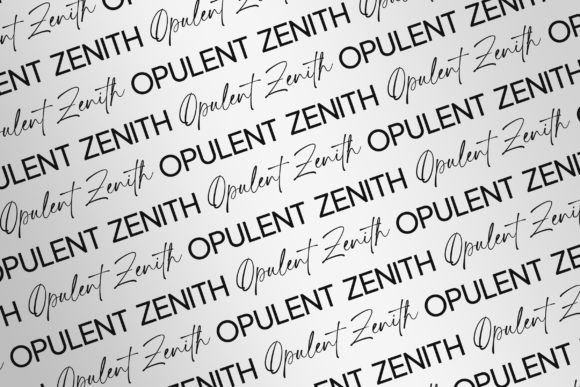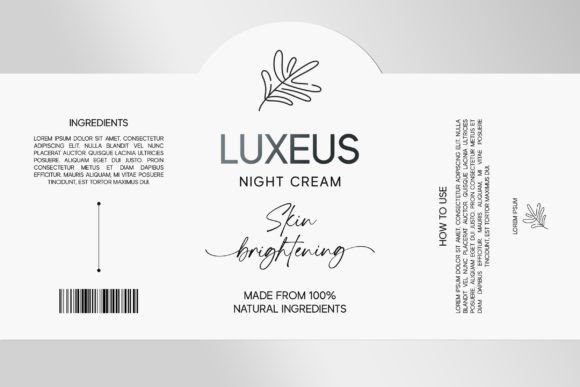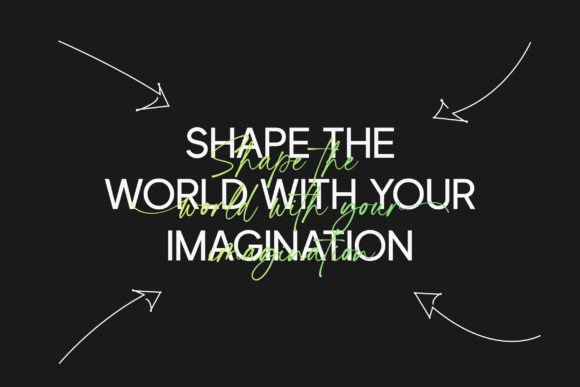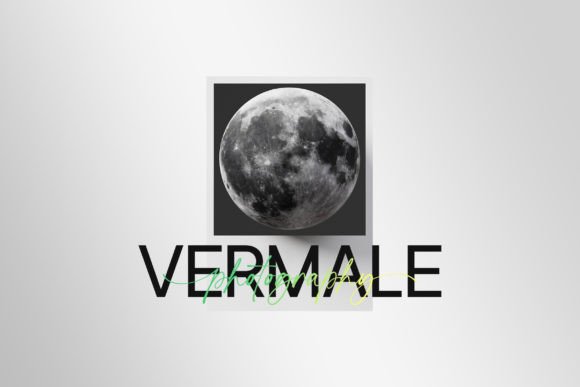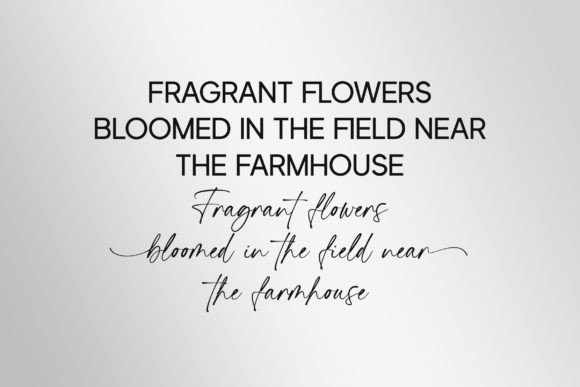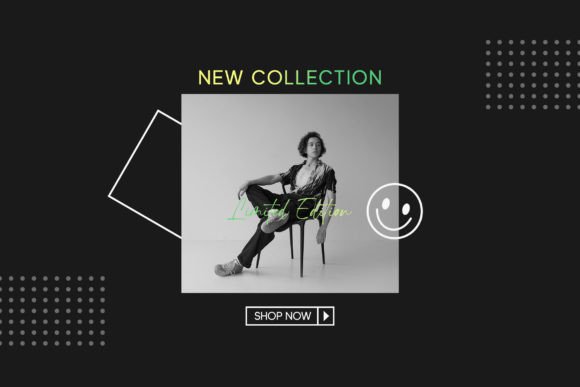
I still remember the frustration of working on a logo design project for a client who wanted a modern, elegant look. I had spent hours browsing through font libraries, but nothing seemed quite right. That was until I stumbled upon the Cromathic font duo. It was love at first sight! The combination of a sleek, modern sans-serif and an elegant script was exactly what I needed to bring my design to life.
What is Cromathic Font?
Cromathic is a font duo that pairs a modern all-caps sans-serif with an elegant script, providing a versatile design with a minimalist yet appealing impression. This combination makes it suitable for various design projects such as logos, branding, posters, labels, product packaging, and invitations.
- ✨ Versatility: Cromathic offers a range of design possibilities with its two font styles.
- ✅ Clean and Attractive Style: The font duo provides a balanced contrast that makes it easy to highlight messages in a clean and attractive way.
- 💡 Ease of Use: The fonts are easy to work with, even for those who are new to design.
⚠️ While Cromathic is a fantastic font duo, there are a few things to keep in mind. The script font can be a bit finicky when used in large blocks of text, and some users may find the sans-serif font a tad too geometric for certain design applications.
🤔 Additionally, Cromathic may not be the best choice for body text due to its elegant and modern design, which may be better suited for headings and titles.
Cromathic was designed with the goal of creating a versatile font duo that could be used for a wide range of design applications. The designer wanted to create a font that was both modern and elegant, with a clean and attractive style.
Q: What is Cromathic font?
A: Cromathic is a font duo that combines a modern all-caps sans-serif with an elegant script, providing a versatile design with a minimalist yet appealing impression.
Q: What design projects is Cromathic suitable for?
A: Cromathic is suitable for various design projects such as logos, branding, posters, labels, product packaging, and invitations.
Q: Can I use Cromathic for body text?
A: While Cromathic can be used for body text, it may be better suited for headings and titles due to its elegant and modern design.
Q: Is Cromathic easy to use?
A: Yes, Cromathic is easy to use, even for those who are new to design. The font duo provides a range of design possibilities and is compatible with various design software.